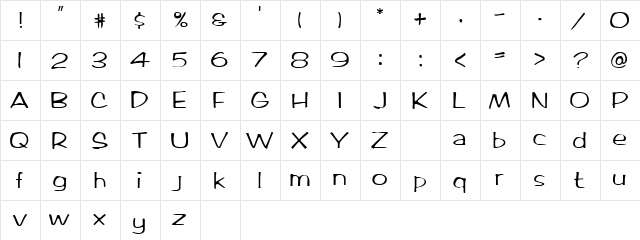
Zabrze Normal
Design Context for Zabrze Typeface
Zabrze takes a measured approach to typography — its balanced proportions and neutral character make it a reliable workhorse for both digital and print work.